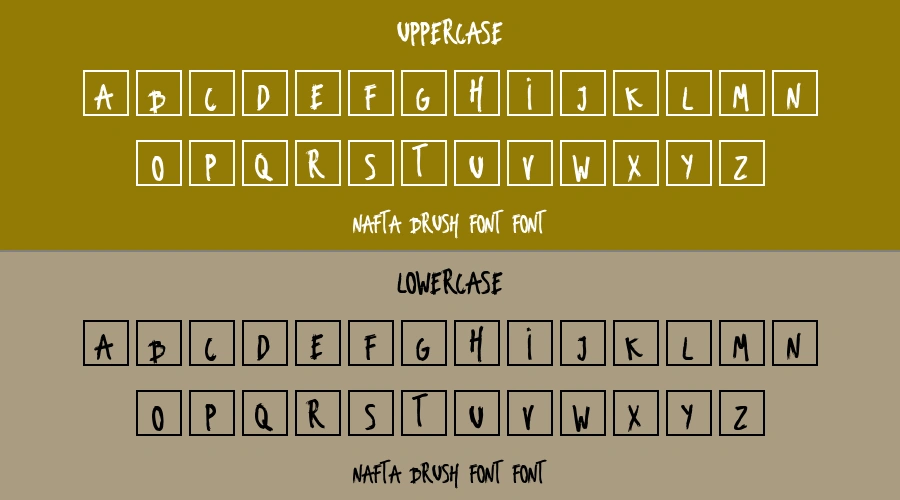
About Nafta Brush Font Font
Designed with precision, Nafta Brush Font Font merges harmonious shapes with originality in every character. This versatility makes it particularly effective for poster titles, where authenticity and industrial strength directly impact communication quality. Each letterform demonstrates meticulous craftsmanship.
Technical excellence shines through elements like measured spacing and case-sensitive forms, enhancing typographic versatility. In page numbers settings, Nafta Brush Font Font proves its worth through superior language switching. The thoughtful execution of x-height and contemporary relevance ensures professional results.